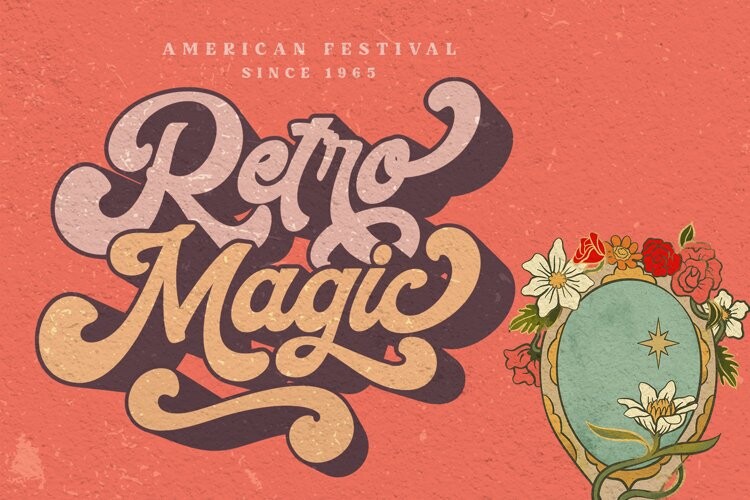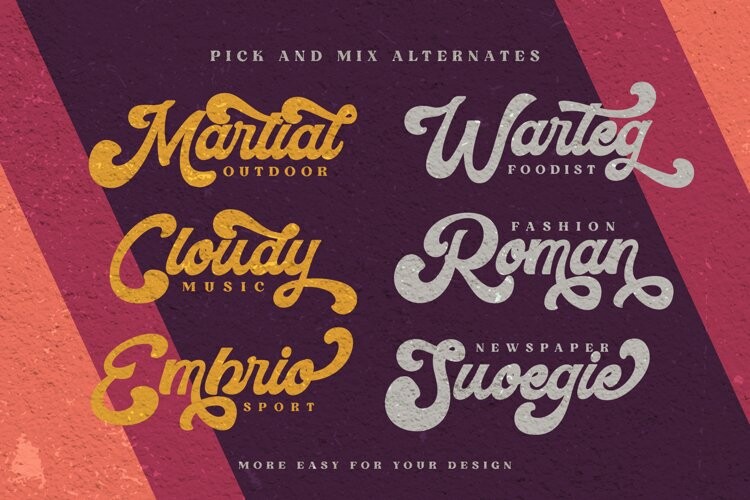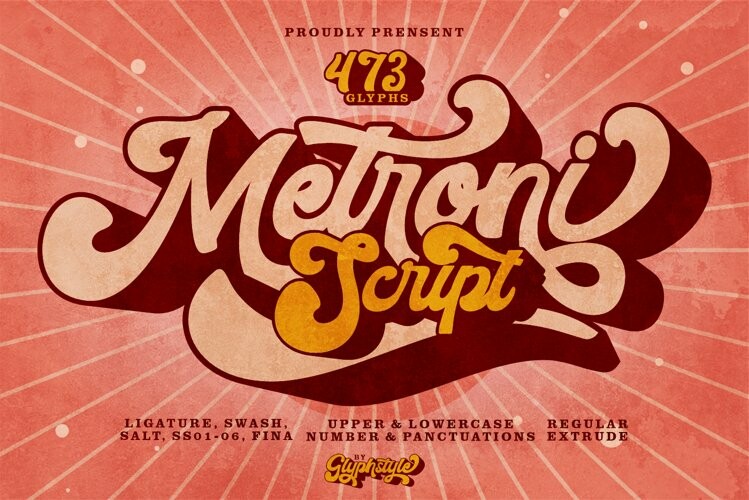
Metroni Font
Metroni FontMetroni is a bold, retro and vintage themed script font. bold font with many choices of stylistic or character variations that you can choose from such as swash, ligature, salt etc.
Metroni is perfect for branding projects, logos, wedding designs, social media posts, advertisements, product packaging, product designs, labels, photography, watermarks, invitations, stationery and any project that requires a bold, retro style script font.